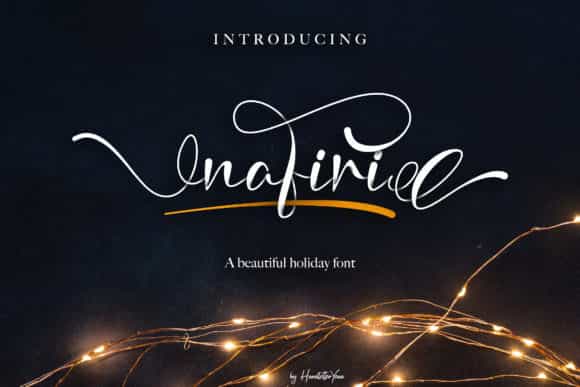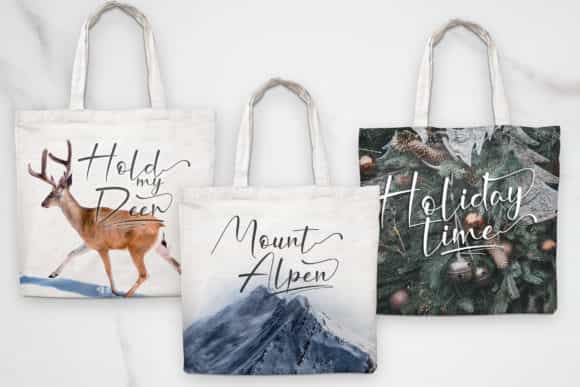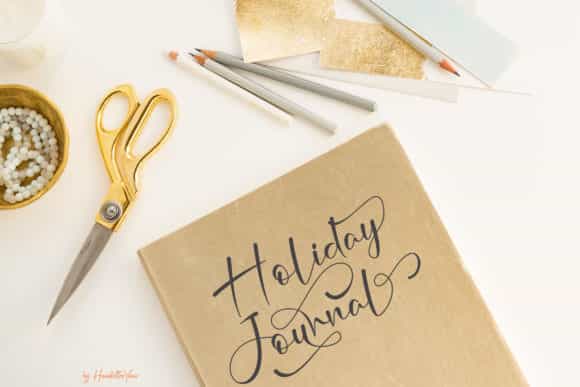
Introducing Nafiri Font. It is created and posted by yean. aguste. It is very appealing and looks more like the Christmas and Winter fonts. This style can be applied in logos, branding, invitations, business cards, wedding arts, social networking, and any design requiring handwritten appearance.